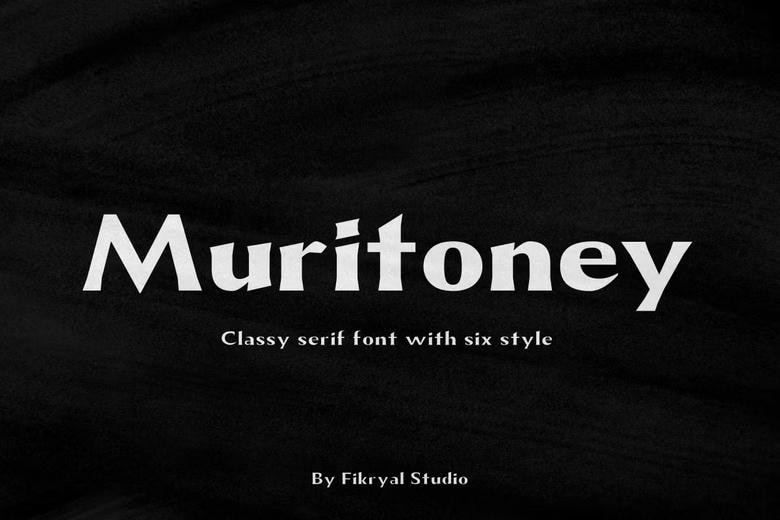
Muritoney Font Family
Muritoney is a timeless serif typeface designed to bring sophistication and professionalism to your creative projects. With six meticulously crafted styles—Thin, Light, Regular, Medium, Bold, and Black—Muritoney offers exceptional versatility and elegance for various applications.
This premium font is equipped with a comprehensive set of features to enhance your design experience: -Six Distinct Styles: Ranging from the subtle grace of Thin and Light to the bold confidence of Black, each weight is tailored to meet diverse creative needs.
Multilingual Support: Seamlessly adaptable for global projects with extensive language compatibility. Comprehensive Character Set: Includes uppercase and lowercase letters, numerals, punctuation, and symbols, along with ligatures and alternates for added creativity.
Versatile Applications: Perfect for branding, editorial design, high-end invitations, luxury packaging, and modern web designs. Carefully designed to balance aesthetics and functionality, Muritoney ensures your projects exude refinement and professionalism.
Muritoney Serif Font Family